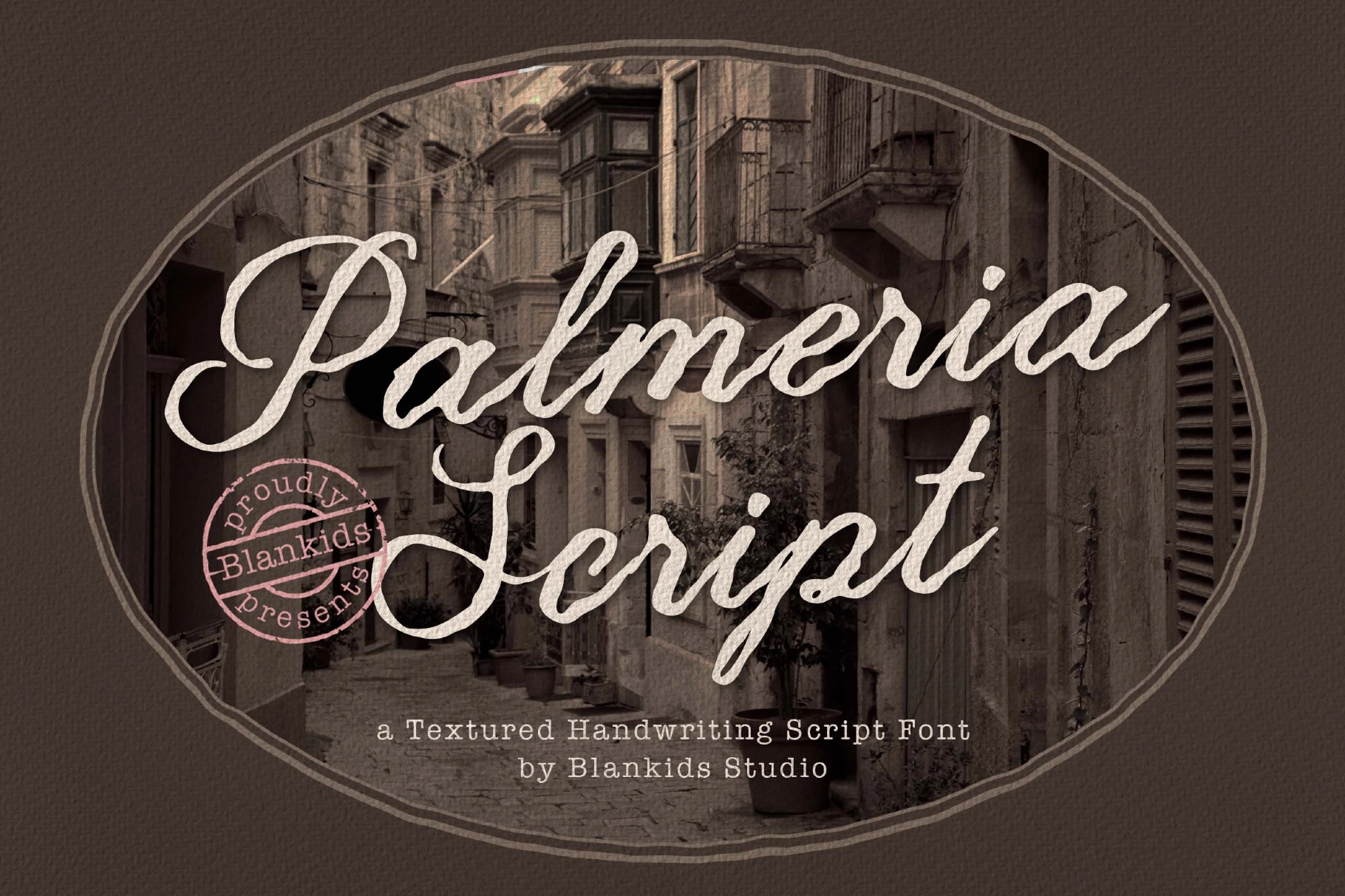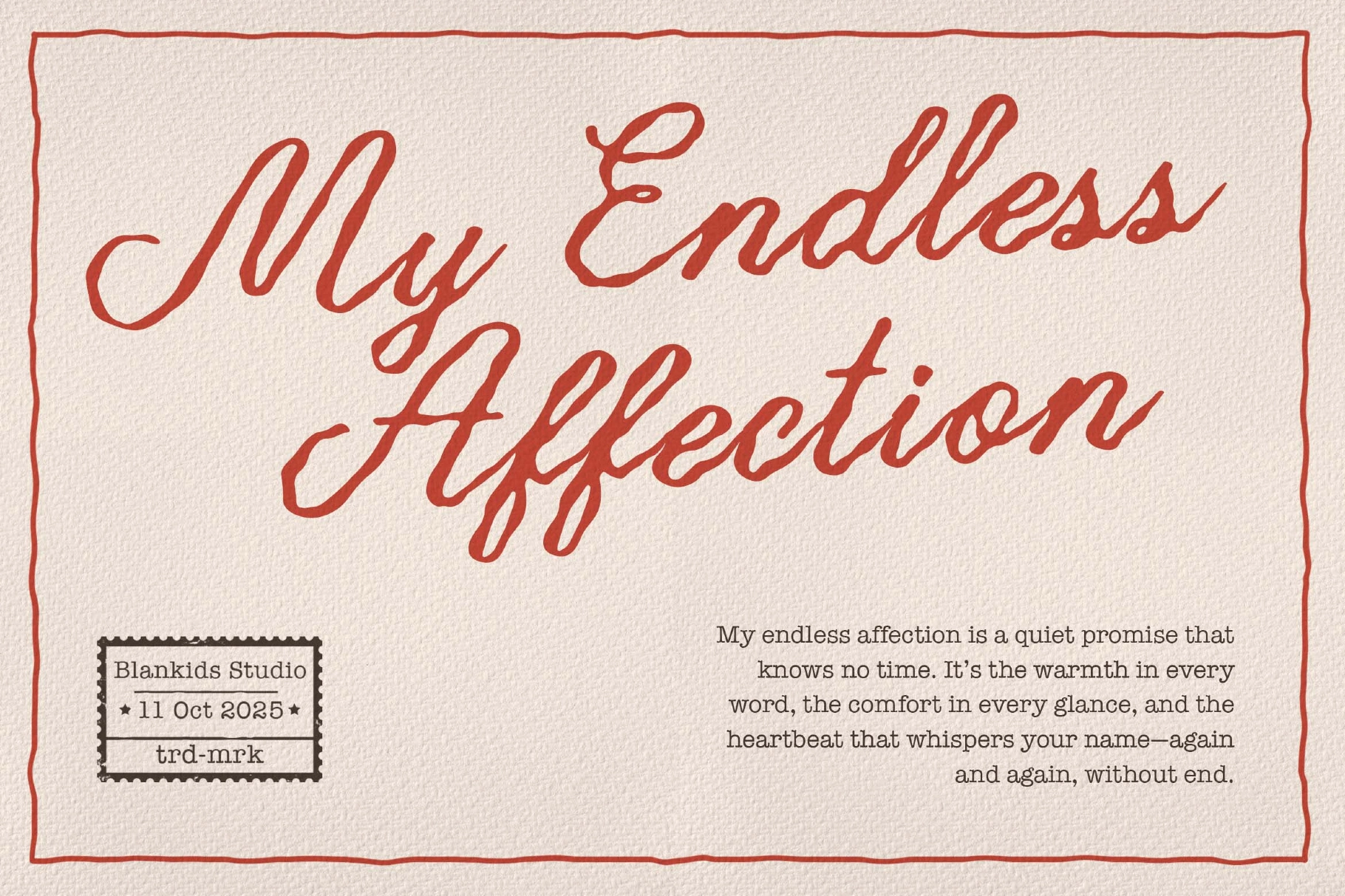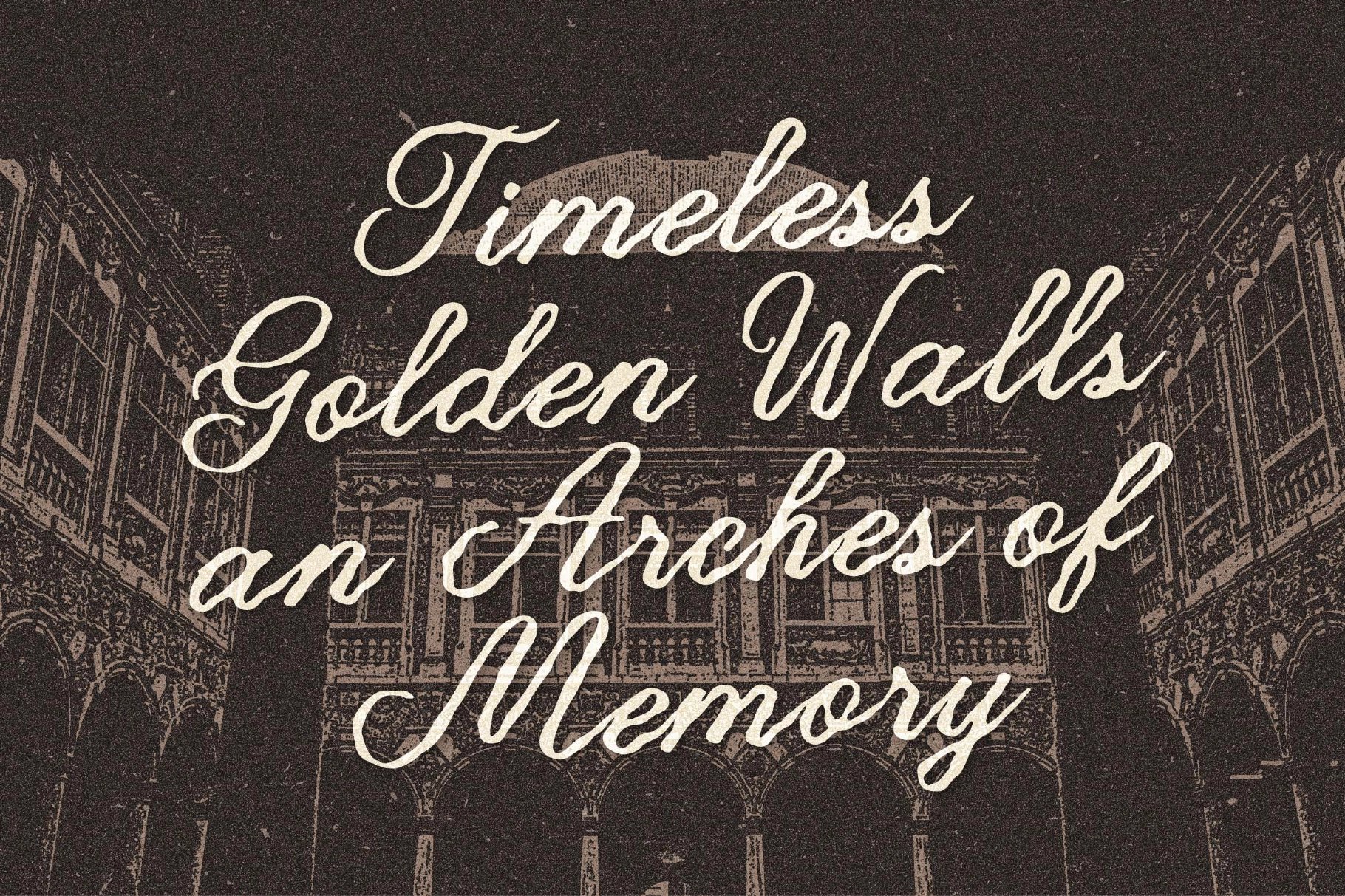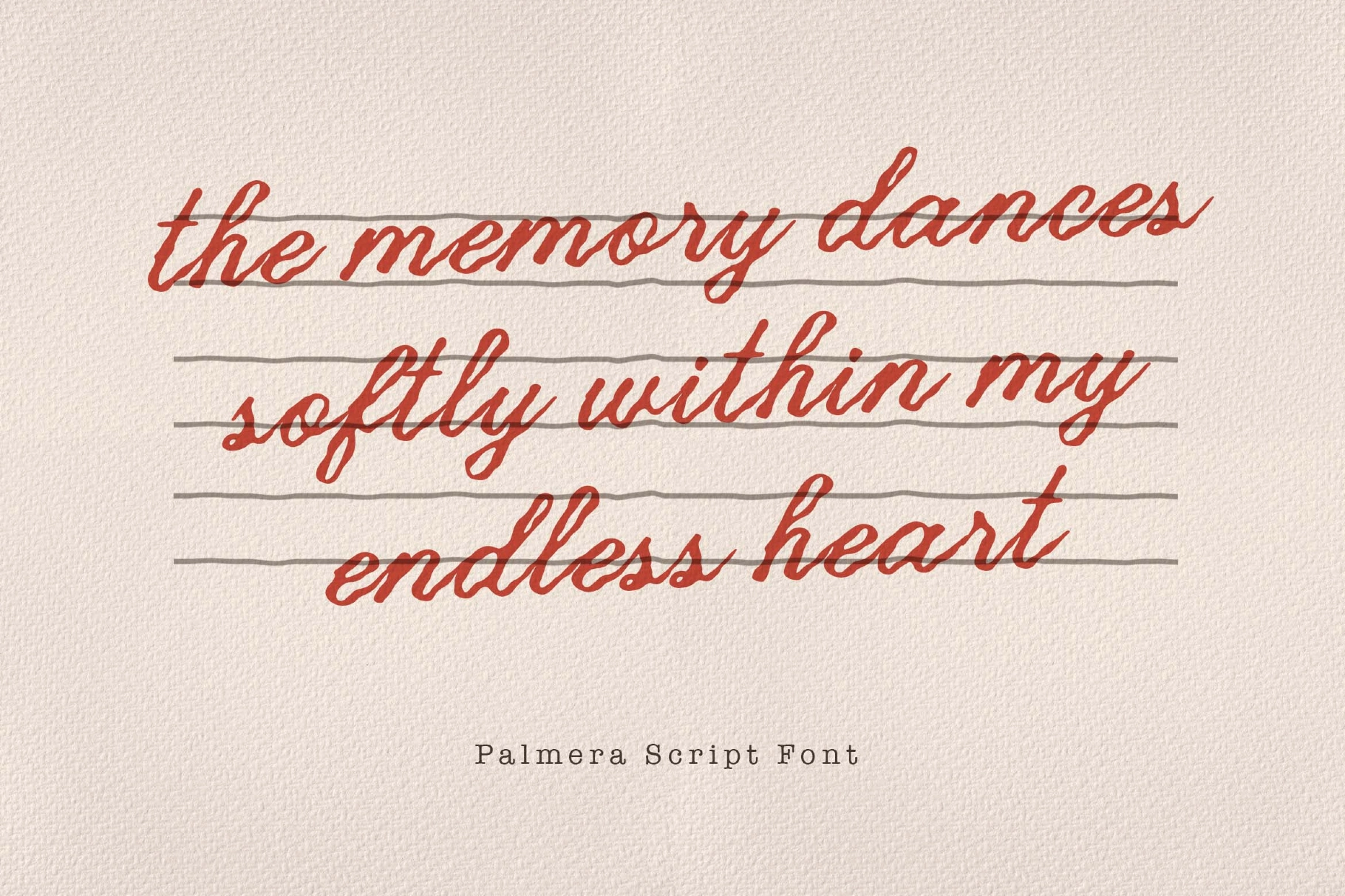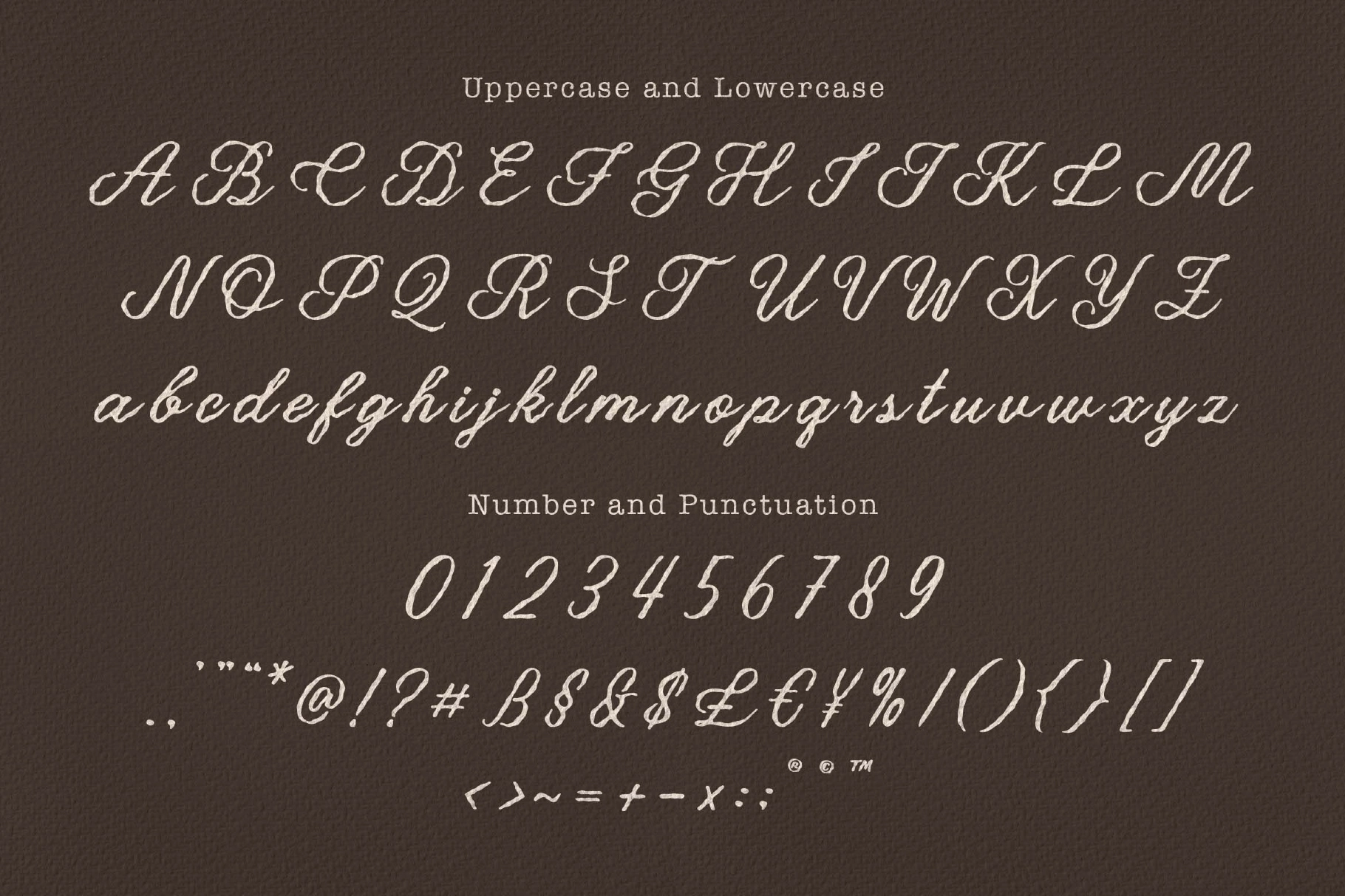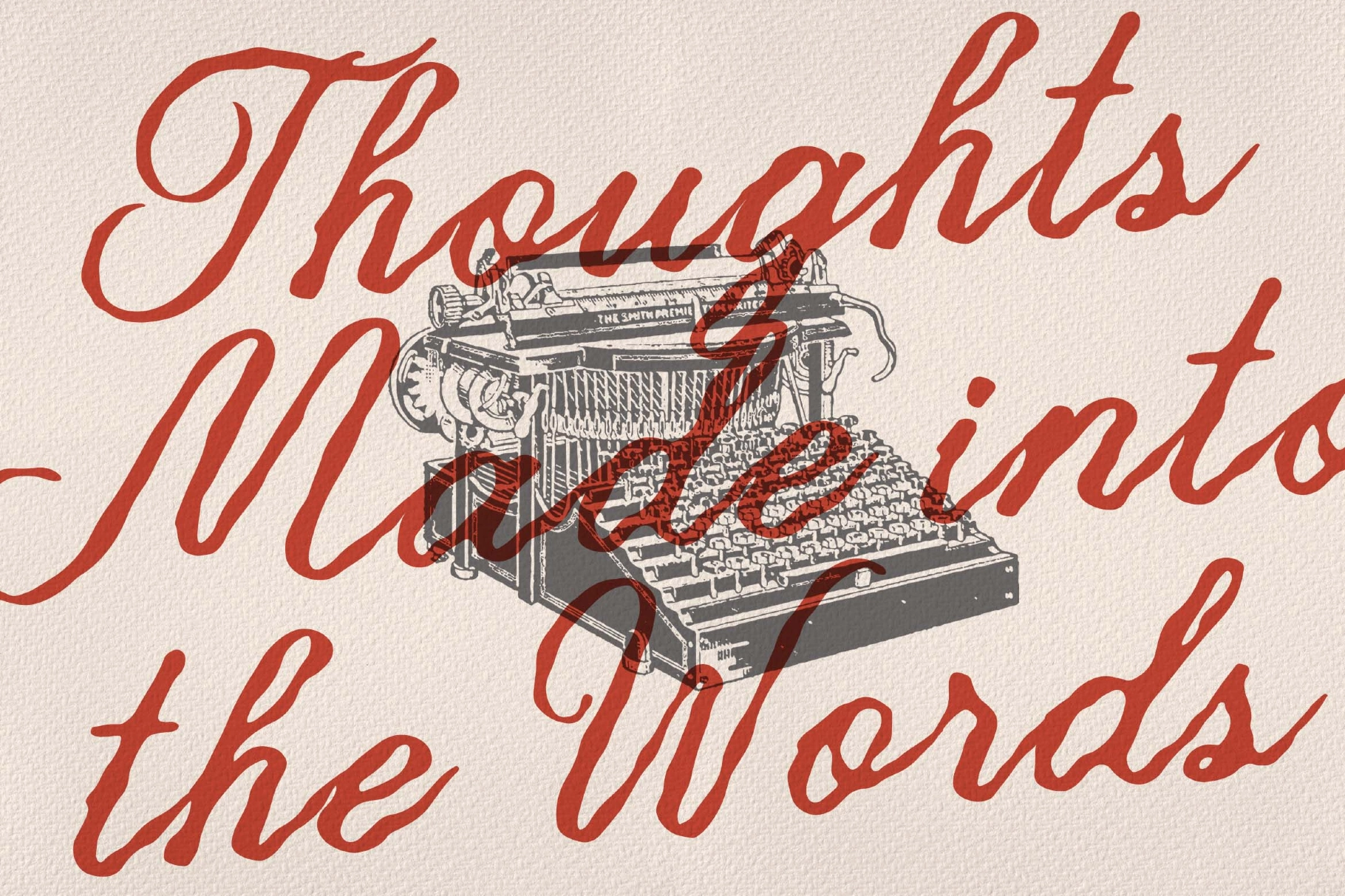
Palmeria a Textured Handwriting Font
Palmeria
Bring a touch of nostalgic charm to your designs with Palmeria Script, a textured handwriting font that captures the warmth of vintage penmanship and timeless elegance. Each stroke is carefully crafted to look natural, giving your text an authentic handmade feel.
Perfect for branding, packaging, invitations, logos, posters, and vintage-themed projects, Palmeria Script blends classic sophistication with organic texture, making every word feel alive and personal.
- Textured details for authentic hand-drawn feel
Let Palmeria Script tell your story with character, charm, and the beauty of imperfection.